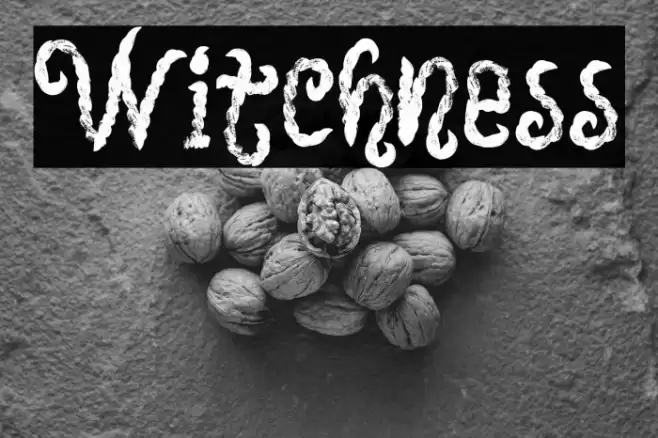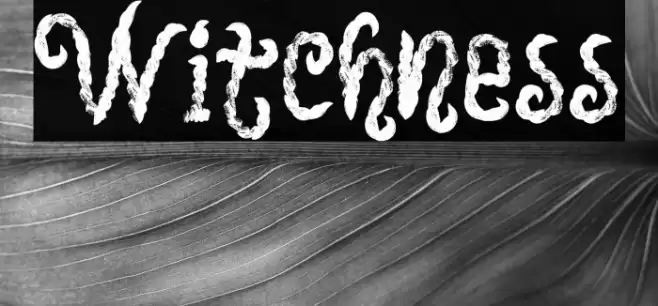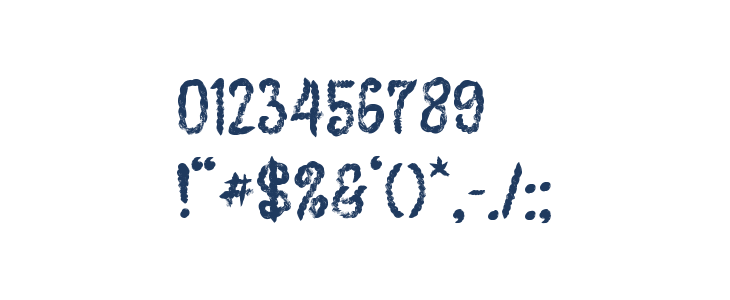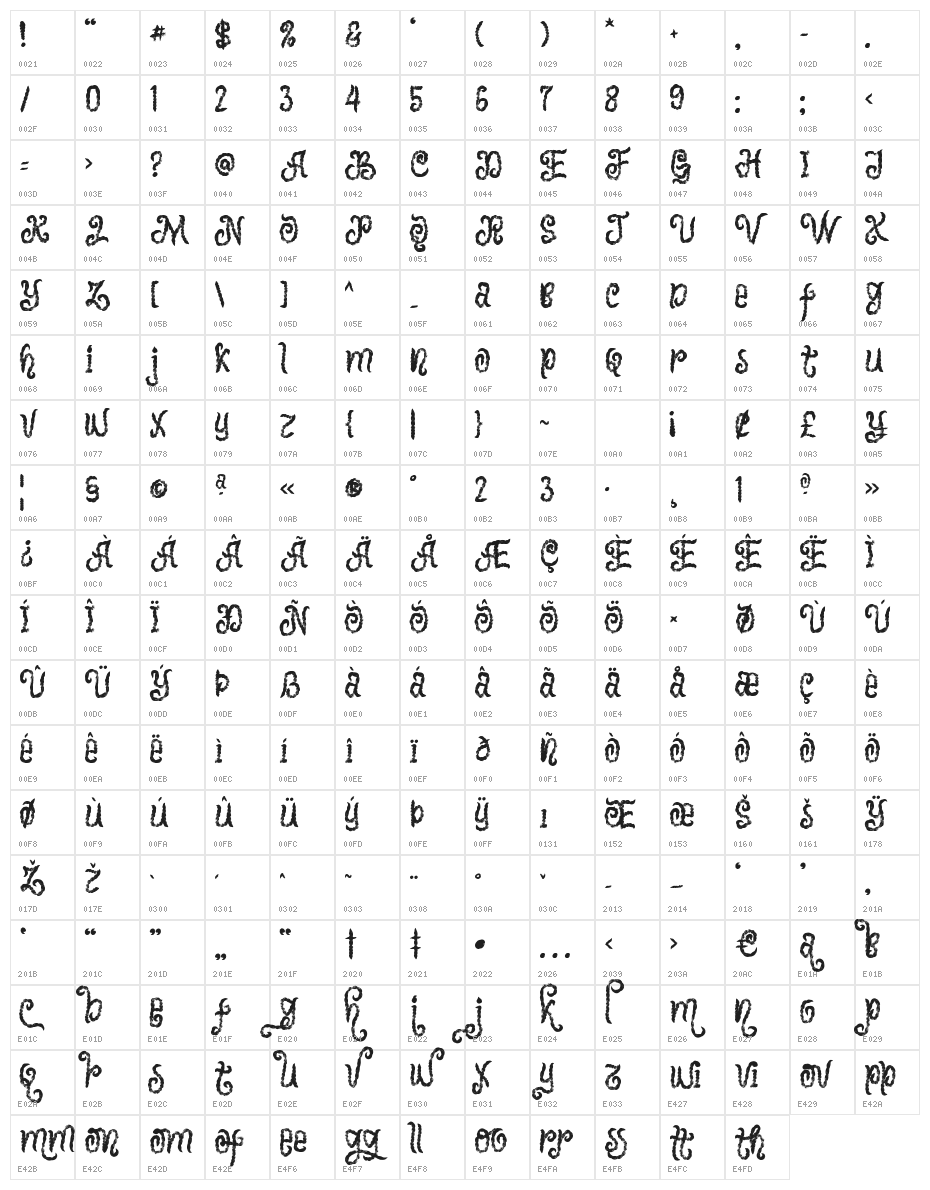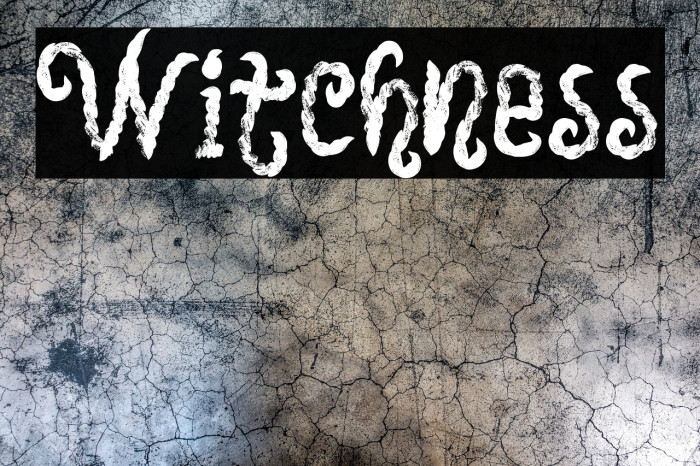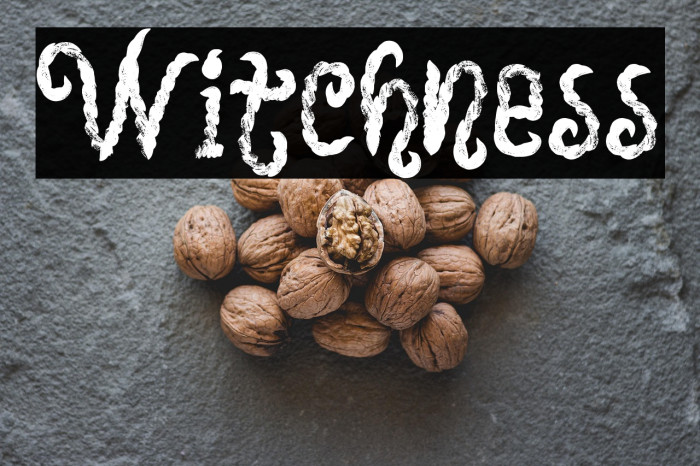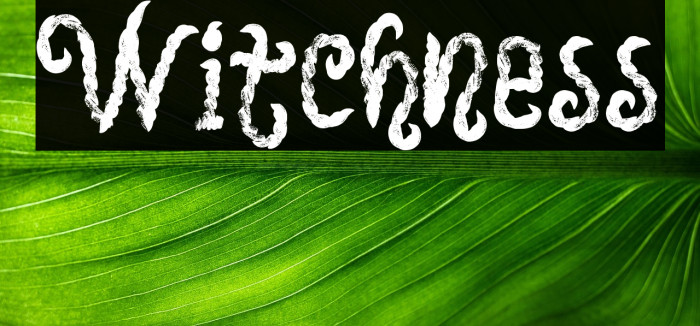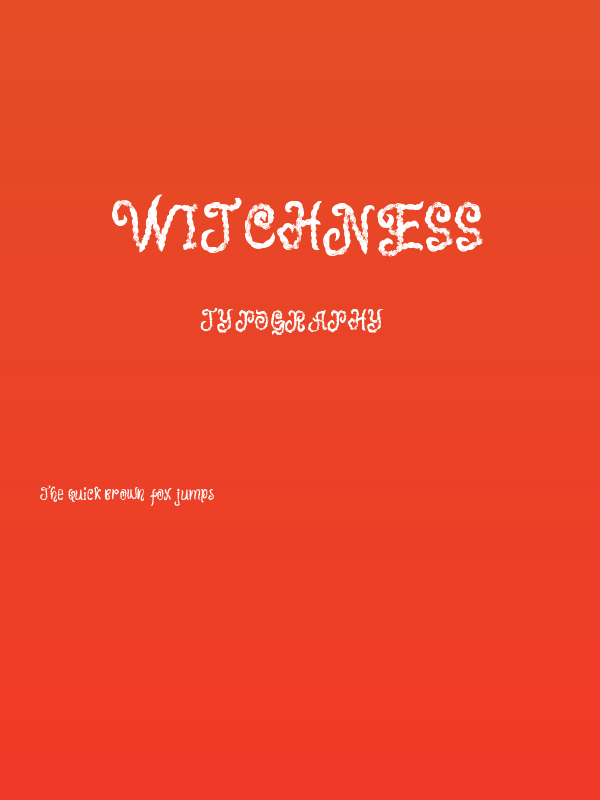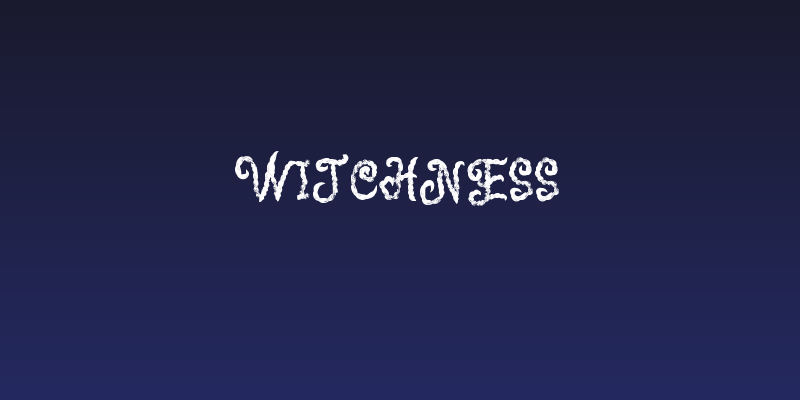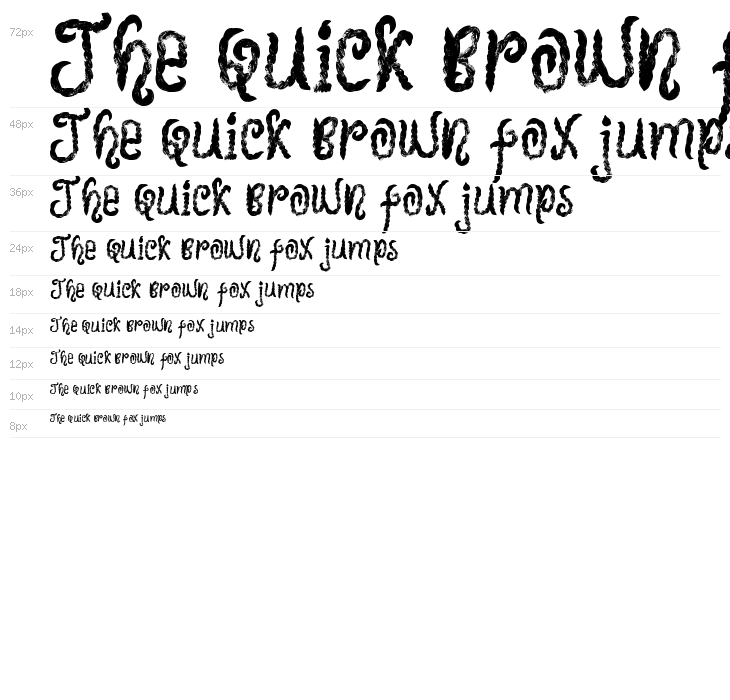
Witchness Font
Witchness Description
This font features a unique, decorative style with a whimsical and slightly eerie appearance. The characters are crafted with a textured, brush-like effect that gives them a hand-drawn feel. Each letter is adorned with intricate curls and loops, creating a sense of movement and fluidity. The uppercase and lowercase letters maintain a consistent design, while the numbers and special characters complement the overall aesthetic. This font is perfect for projects that require a touch of mystery or fantasy, making it ideal for Halloween-themed designs or magical storytelling.
A decorative, textured font with whimsical curls and a hand-drawn feel from Uncategorized fonts.
- Proposed Projects: Ideal for Halloween designs, fantasy book covers, magical event invitations, and themed posters.